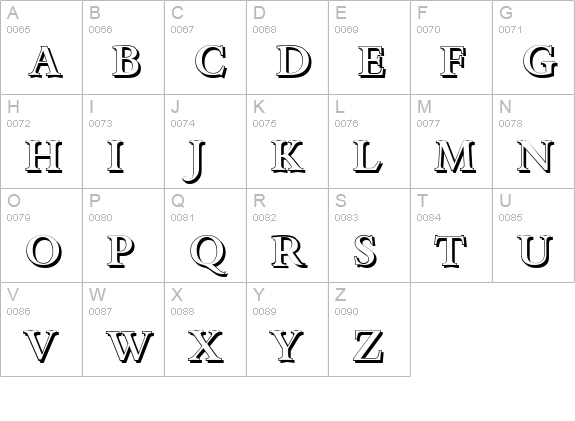
BambergShadow-Medium-Regular is a balanced, medium-weight variant in the BambergShadow typeface family \xE2\x80\x94 well suited to sub-headlines, navigation, and balanced editorial work.
BambergShadow-Medium-Regular font is a modern and stylish typeface that exudes elegance and sophistication. With its sleek lines and unique shadow effect, this font is perfect for adding a touch of class to your design projects. Whether you're creating invitations, posters, logos, or branding materials, BambergShadow-Medium-Regular font will make your text stand out. The best part? This stunning font is completely free to download at FontsMarket.com! Yes, you read that right - you can elevate your designs with this premium quality font without spending a dime. So why wait? Head over to FontsMarket.com now and get your hands on BambergShadow-Medium-Regular font to take your designs to the next level.